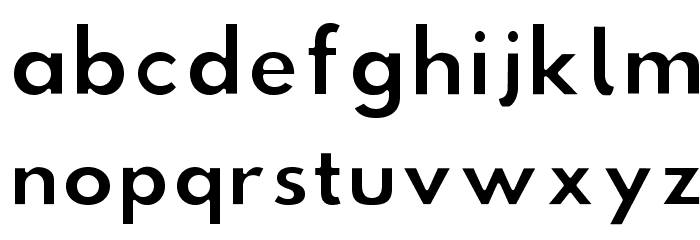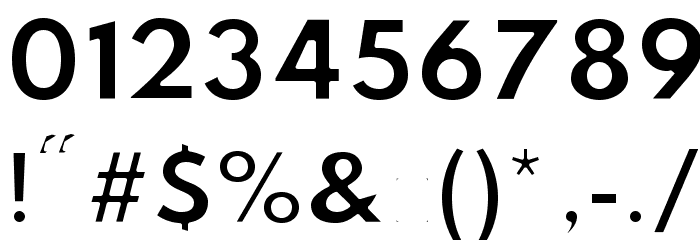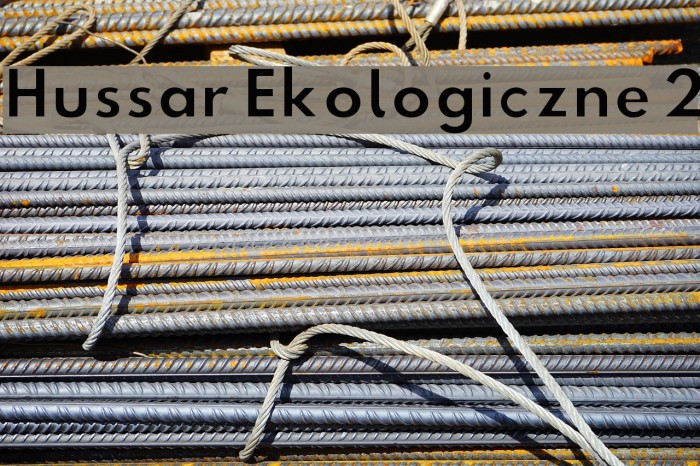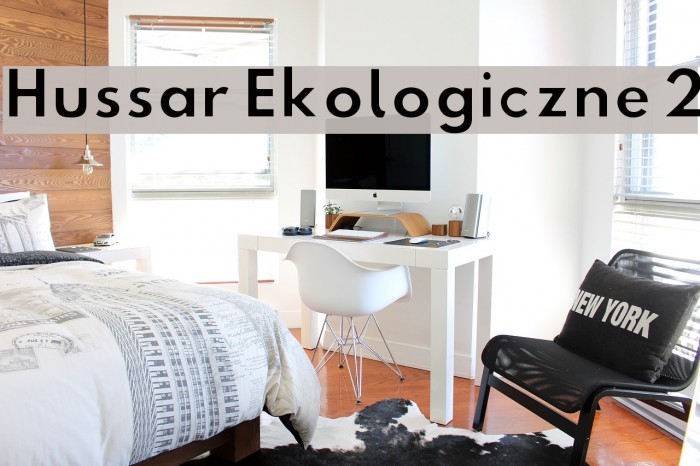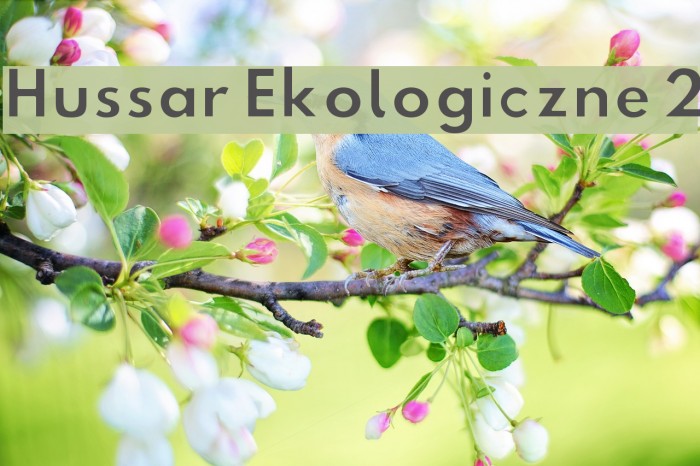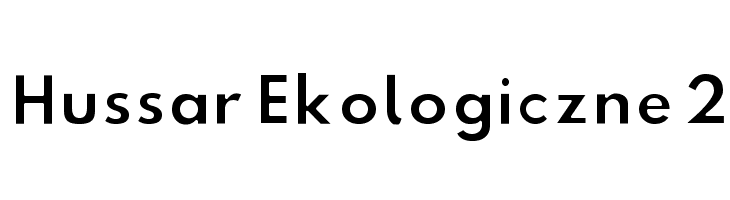
Hussar Ekologiczne 2 Font
This font presents a clean and modern aesthetic with a sans-serif style. The characters are well-defined with a uniform stroke width, contributing to a balanced and harmonious appearance. The uppercase letters are bold and assertive, while the lowercase letters maintain a friendly and approachable demeanor. The numerals are clear and easy to read, making them suitable for various applications. Special characters are included, providing versatility for different contexts. The overall design is sleek and contemporary, making it ideal for modern branding and digital interfaces.
A modern, sans-serif font with clean lines and balanced proportions.
- Proposed Projects: Ideal for branding, digital interfaces, advertising, and editorial design.